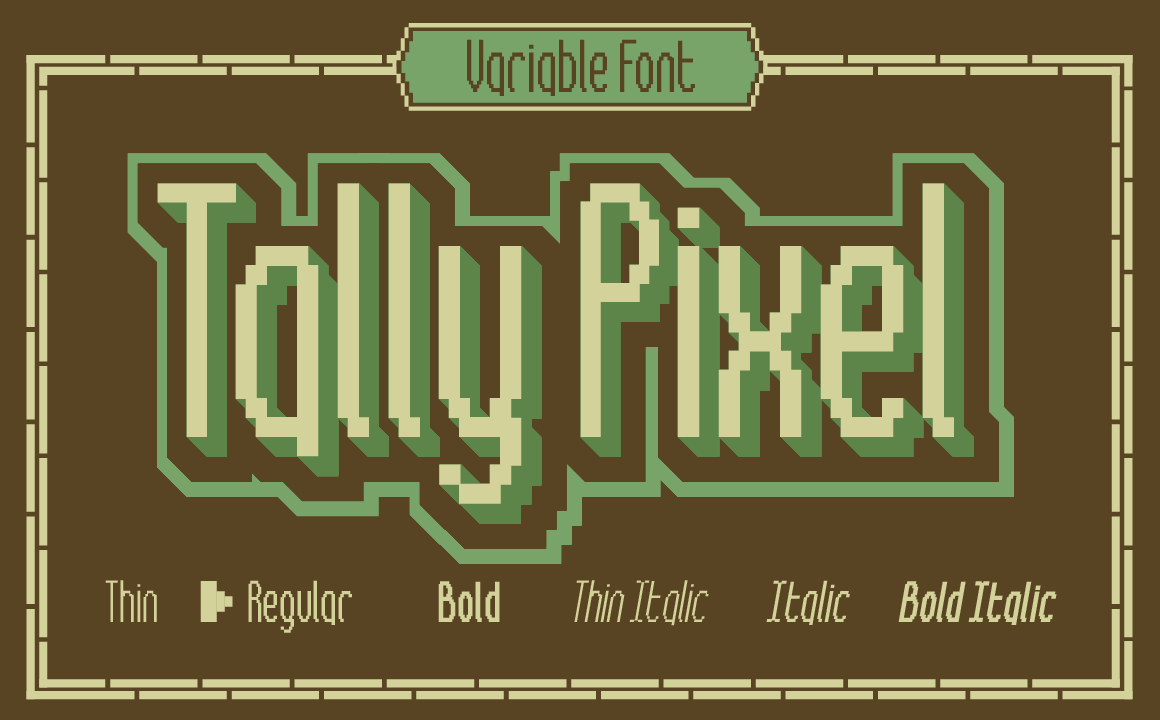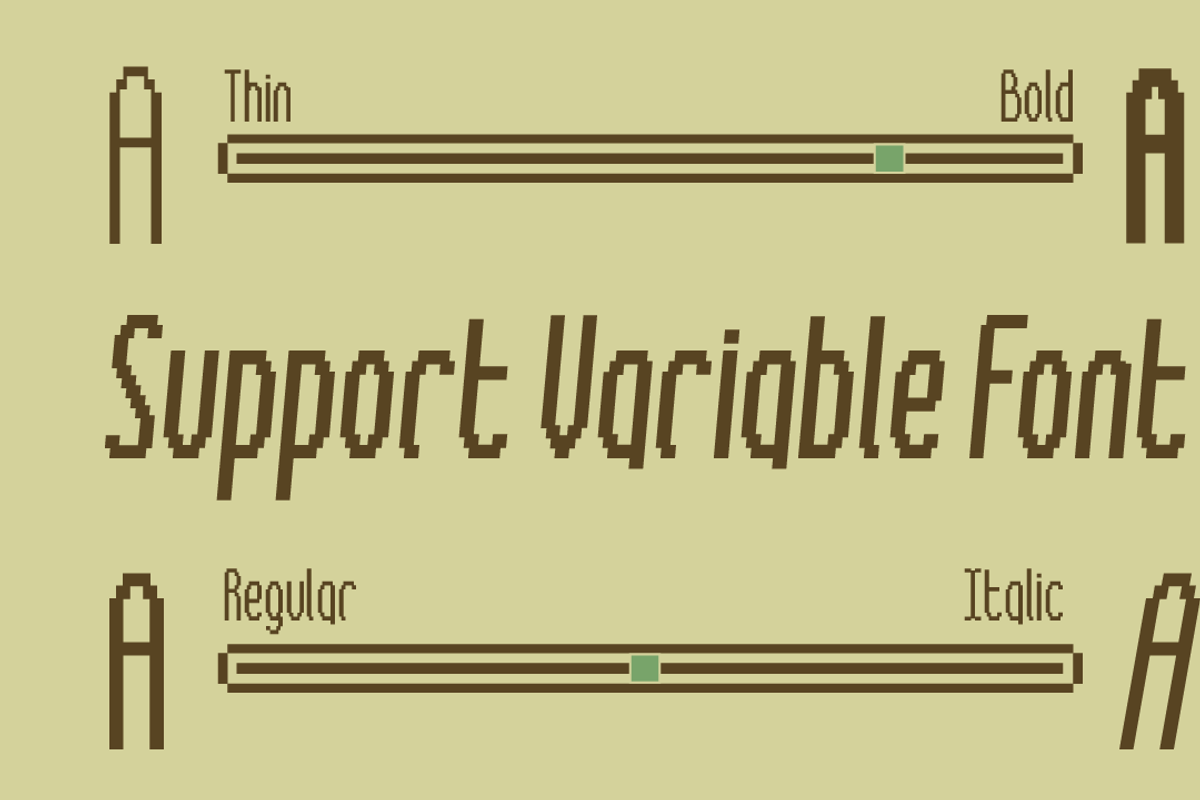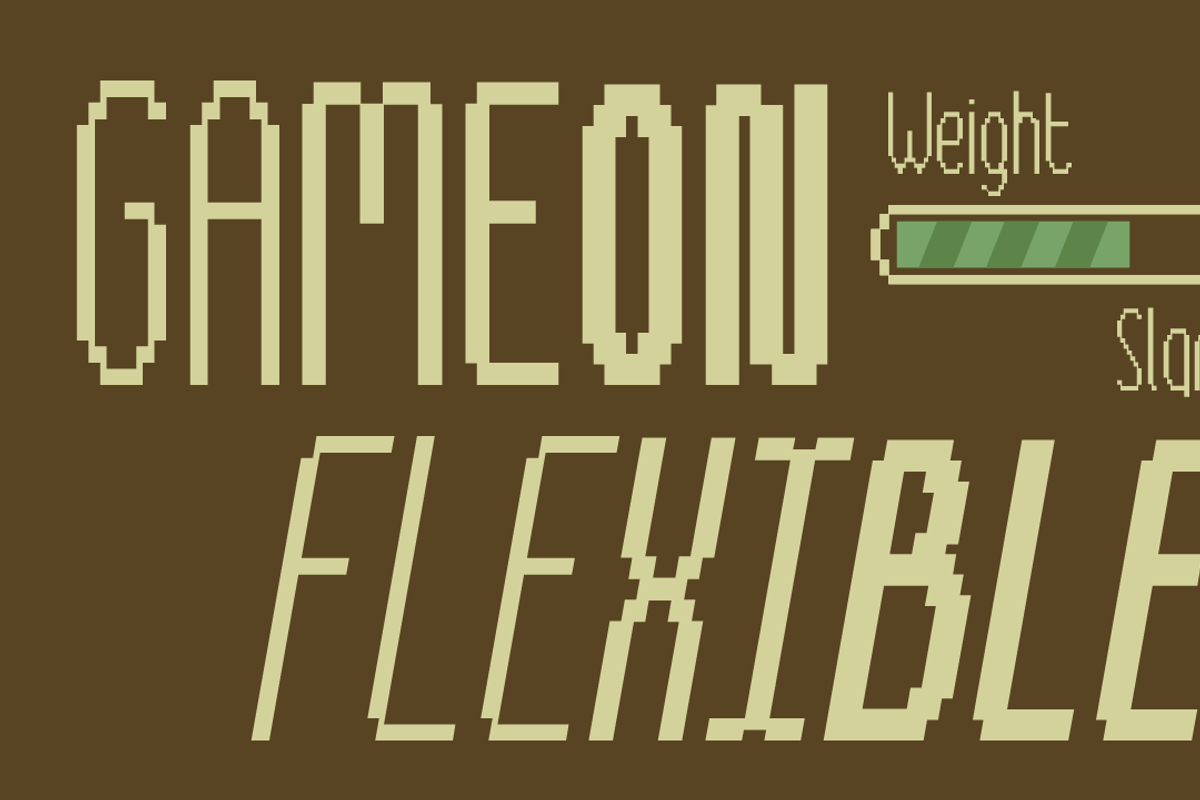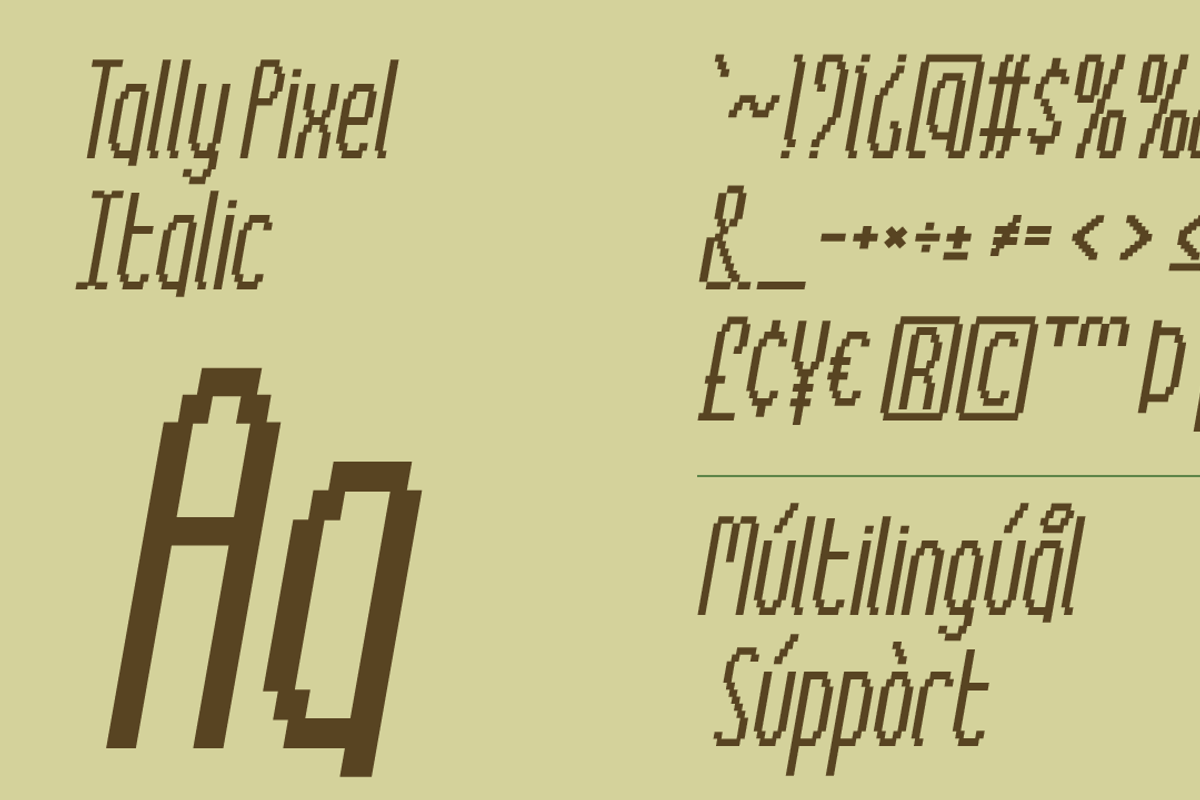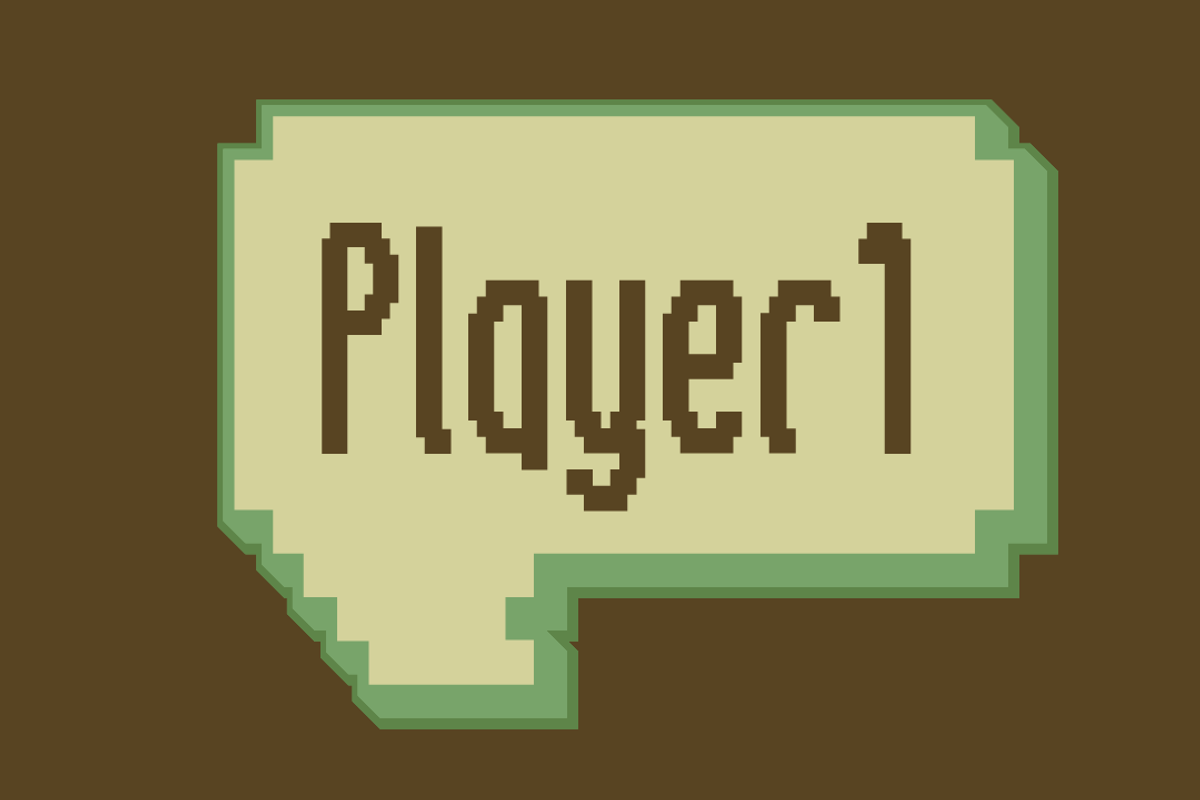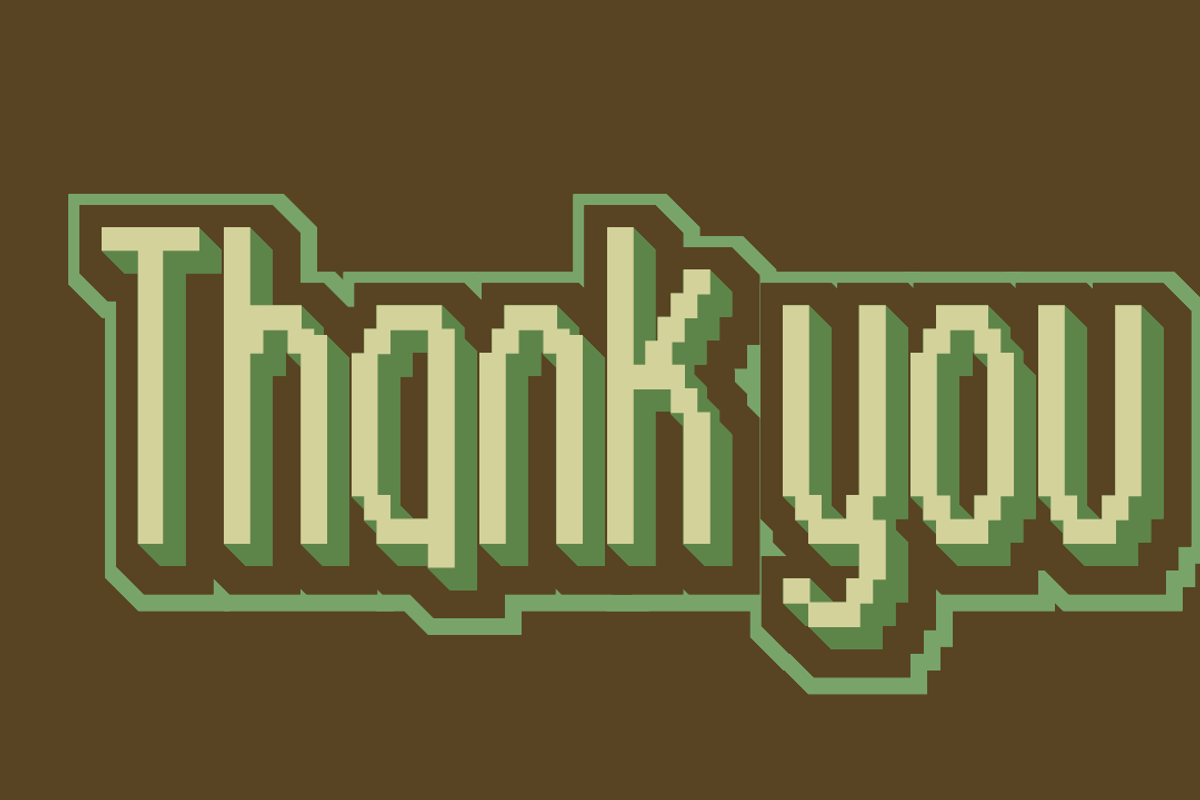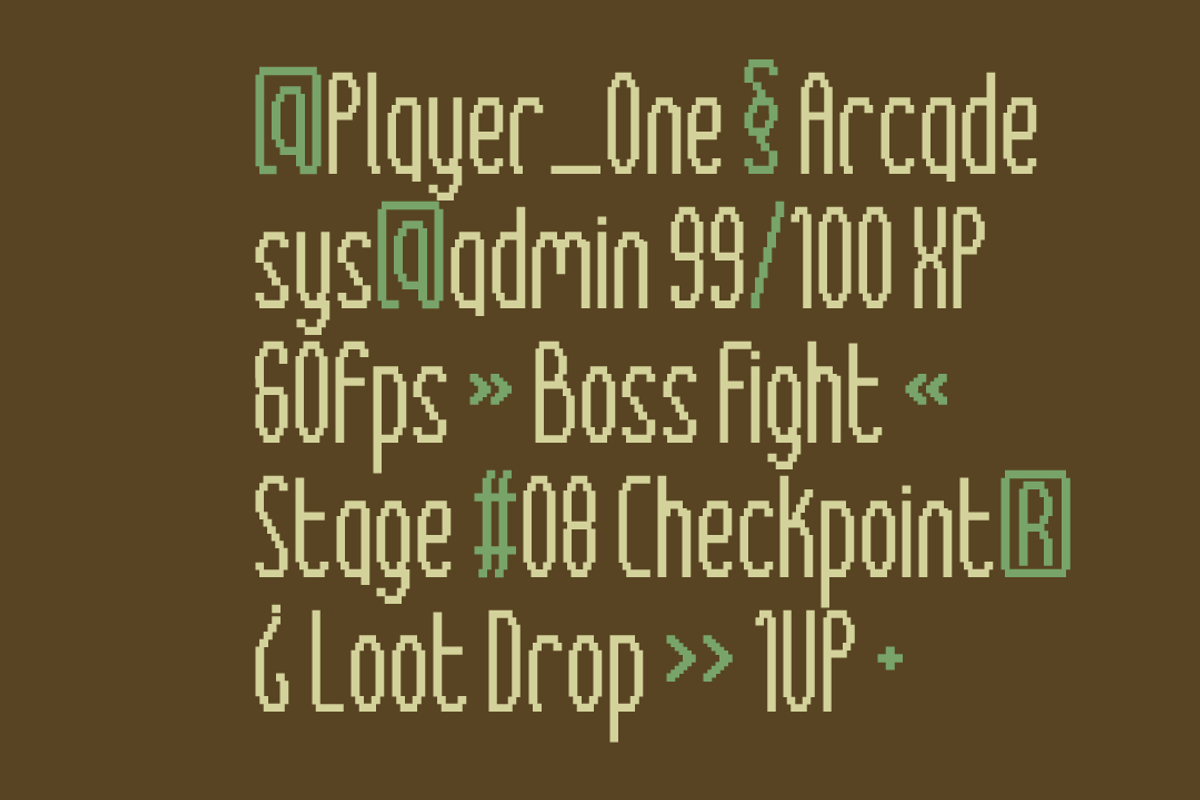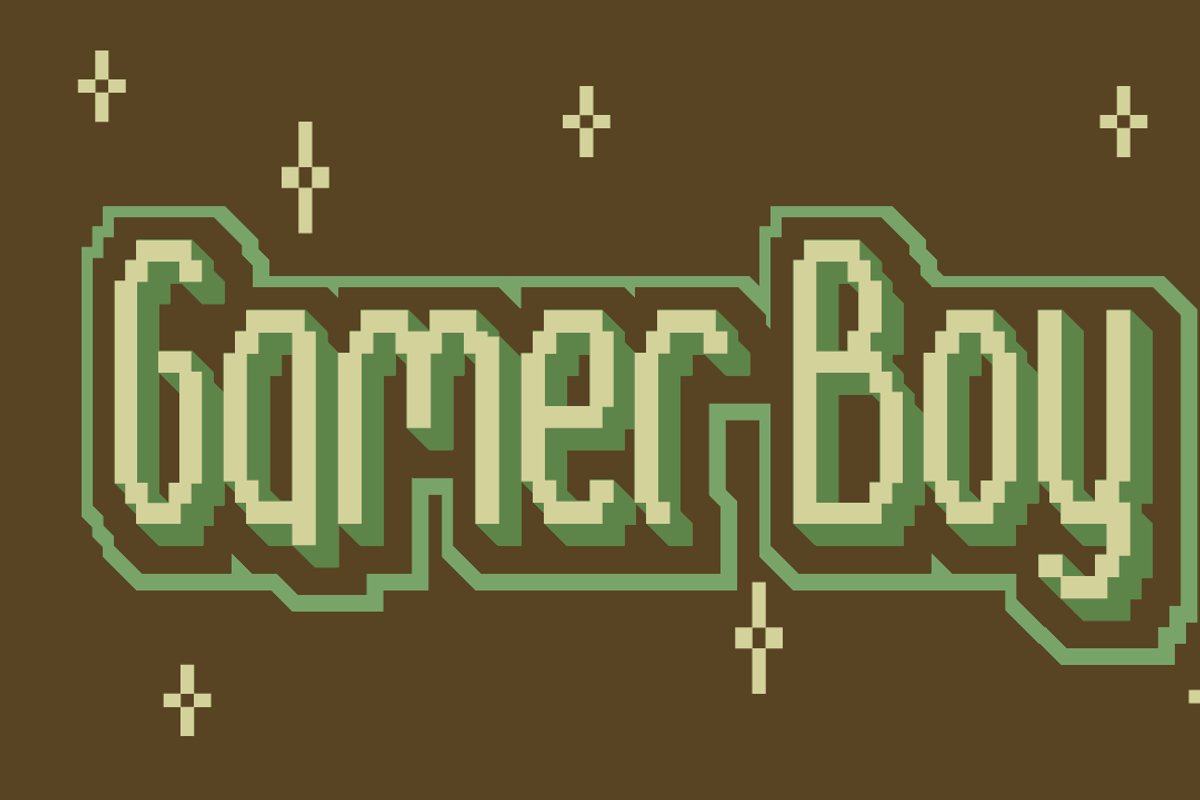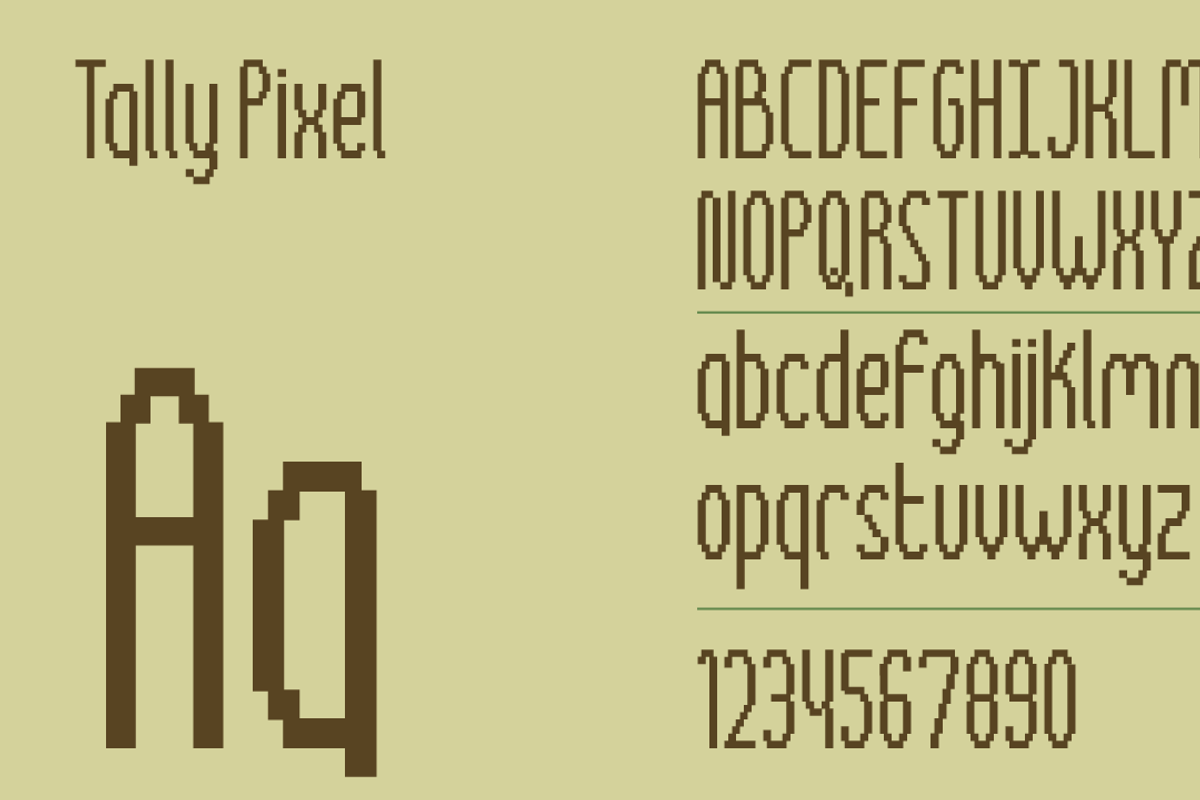
Tally Pixel - Retro Variable Font
Tally Pixel - Retro 8-Bit Variable Font
Tally Pixel is a retro 8-bit style variable font that turns chunky arcade-era letterforms into a genuinely flexible typeface.
Instead of shipping six separate static files, its Weight and Slant axes let you dial in anything from a light Thin upright to a heavy Bold Italic from one single file, without losing that authentic pixel-game character.
It comes with six ready-made styles - Thin, Regular, Bold, Thin Italic, Bold Italic - plus full uppercase, lowercase, and number support for building complete game titles, HUD text, and branding in one consistent voice.